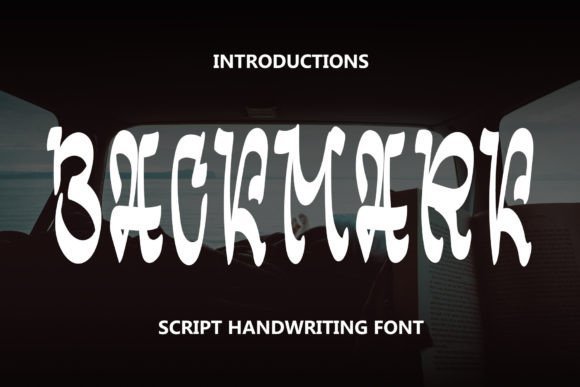
Bringing Whimsy to Your Designs: The Backmark Font
Have you ever been brainstorming a new design project and suddenly the perfect font pops into your mind? For designers, those “aha” moments can be game-changers. For me, it was when I stumbled upon the Backmark Font – a delightful display font that instantly added a touch of playfulness to my work.
With its quirky charm, Backmark Font is a perfect fit for cheerful topics, especially those geared towards children. Whether you’re creating an educational website, a children’s book cover, or a fun infographic, this font brings a smile to the viewer’s face. Its PUA encoding also makes it easy to access all the amazing glyphs and ligatures, giving you even more creative freedom. For designers looking to add a unique touch to their work, the Backmark Font is a valuable addition to their toolkit.
Backmark Font Key Features
- Font Family: Backmark is a serif font family with a classic and elegant feel.
- Unique Characteristics: Backmark features a distinctive x-height and a subtle, yet elegant, flair to its letterforms, giving it a unique and sophisticated feel.
Backmark Font Review
I recently had the chance to work with the Backmark Font, and I must say it’s a unique addition to any design project. Here are some of its standout features:
- ✨ Beautiful vintage-inspired aesthetic: The Backmark Font has a charming, old-world feel that’s perfect for creating a nostalgic or retro vibe in your designs.
- ✨ Versatile use: This font is suitable for a wide range of applications, from headlines to body text, and even for creating logos or watermarks.
- ✨ Wide character set: The font includes a comprehensive set of characters, including punctuation, numbers, and symbols, making it easy to use in any language.
- ⚠️ Limited customizability: While the font’s aesthetic is lovely, it’s not easily customizable, which might limit its use in certain design projects.
- ⚠️ Not ideal for small text: Due to its vintage design, the font can be difficult to read in small sizes, making it less suitable for body text or other small-scale applications.
Overall, the Backmark Font is a lovely addition to any design project that requires a vintage or retro aesthetic. While it may have some limitations, its unique look and versatile use make it a great choice for the right project.
Tips for Getting the Most Out of the Backmark Font
For the best results, use the Backmark font in conjunction with bold or italic text to create contrast and emphasis.
Experiment with different font sizes and styles to create a visually appealing design.
The Backmark font is ideal for use in:
Logos and branding materials
Typography-based designs
Formal documents and reports
Alternatives to Backmark Font
Inter Font is a modern sans-serif font designed by Rasmus Andersson. It is suitable for a wide range of applications, including digital products, logos, and body text. Inter Font is a great alternative to Backmark Font due to its clean and minimalist design, making it ideal for modern and sleek designs.
Inter Font is more versatile and has a larger character set compared to Backmark Font, making it a better choice for projects requiring multiple languages. However, Backmark Font has a more distinctive and bold feel, making it suitable for specific design elements that require emphasis.
Montserrat Font is a geometric sans-serif font designed by Julieta Ulanovsky. It is a popular choice for digital products, logos, and signage. Montserrat Font is a good alternative to Backmark Font due to its urban feel and versatility.
Montserrat Font has a more geometric and structured design compared to Backmark Font, making it suitable for projects requiring a sense of modernity and sophistication. However, Backmark Font has a more playful and approachable feel, making it a better choice for projects requiring a friendly and approachable tone.